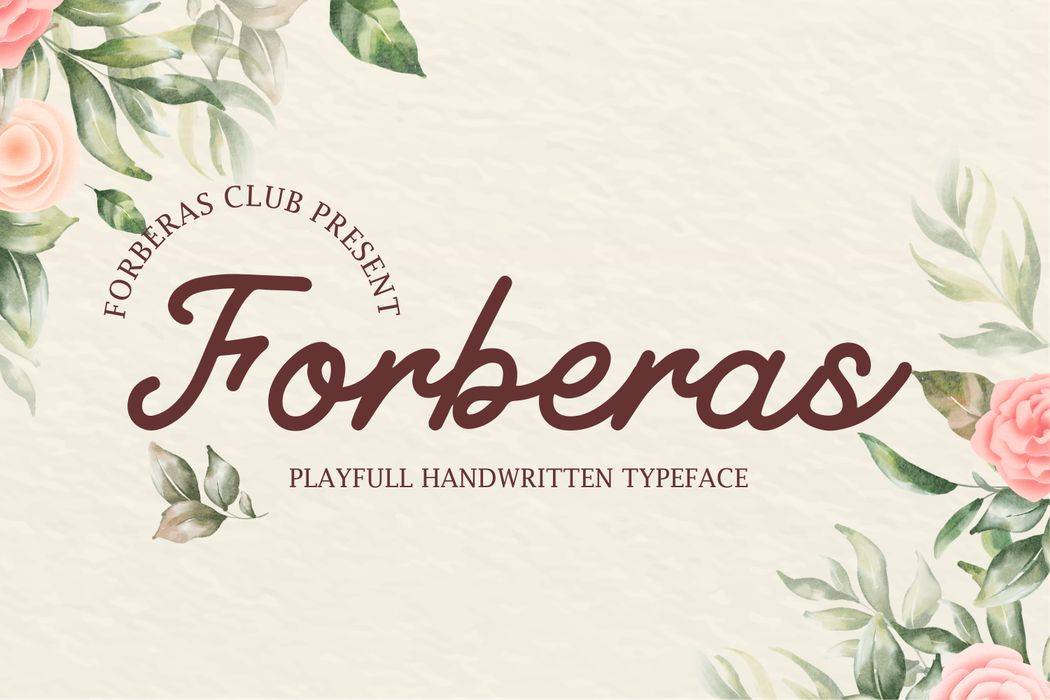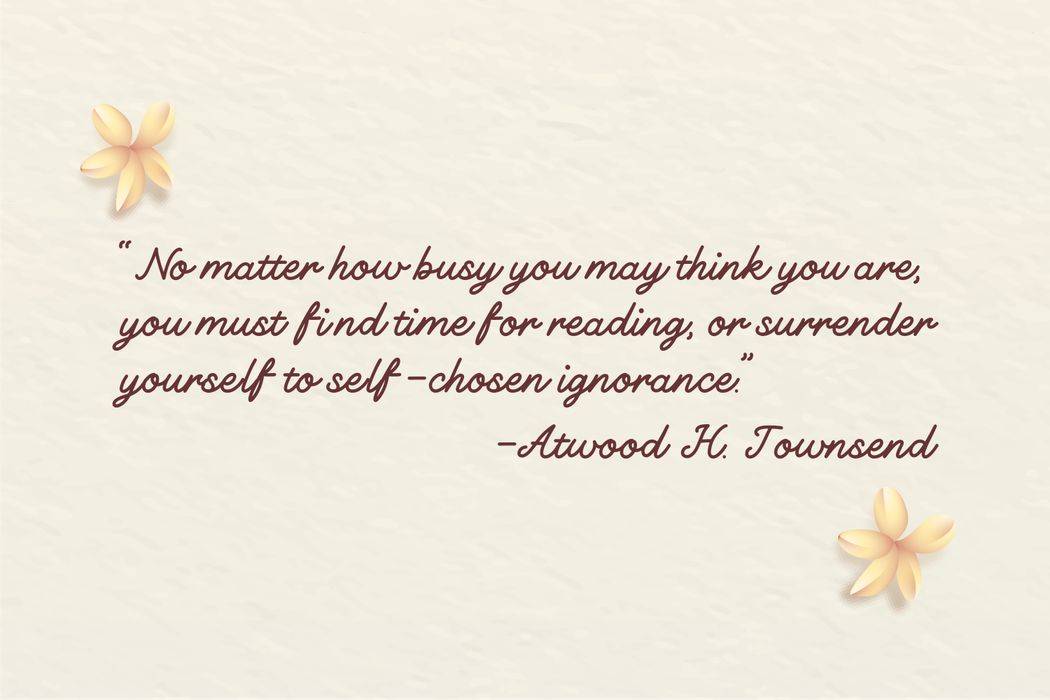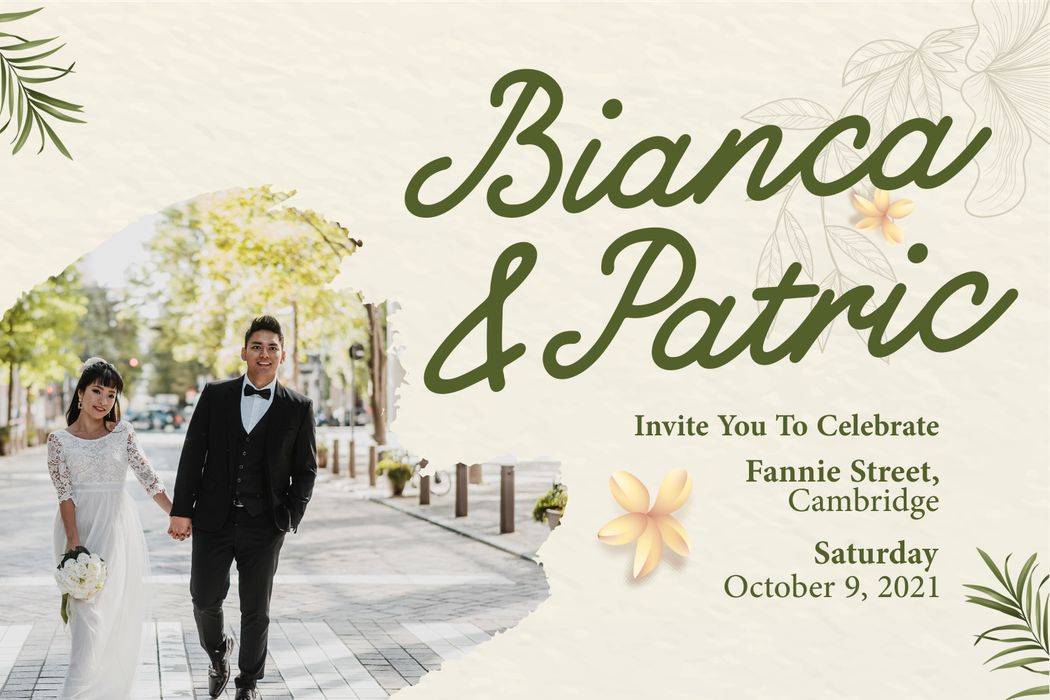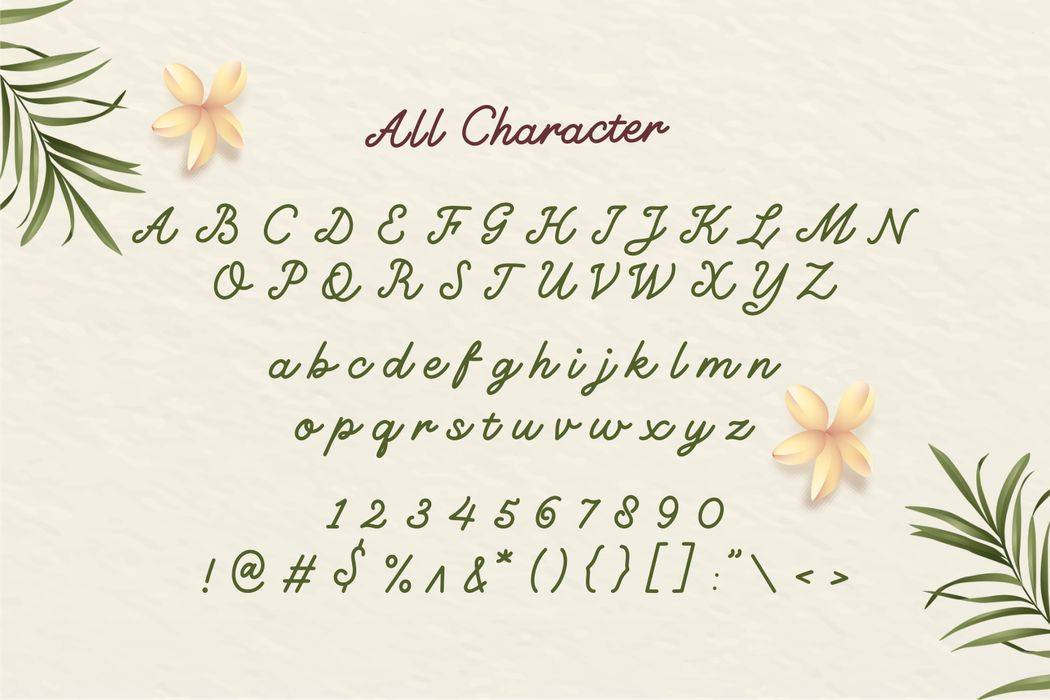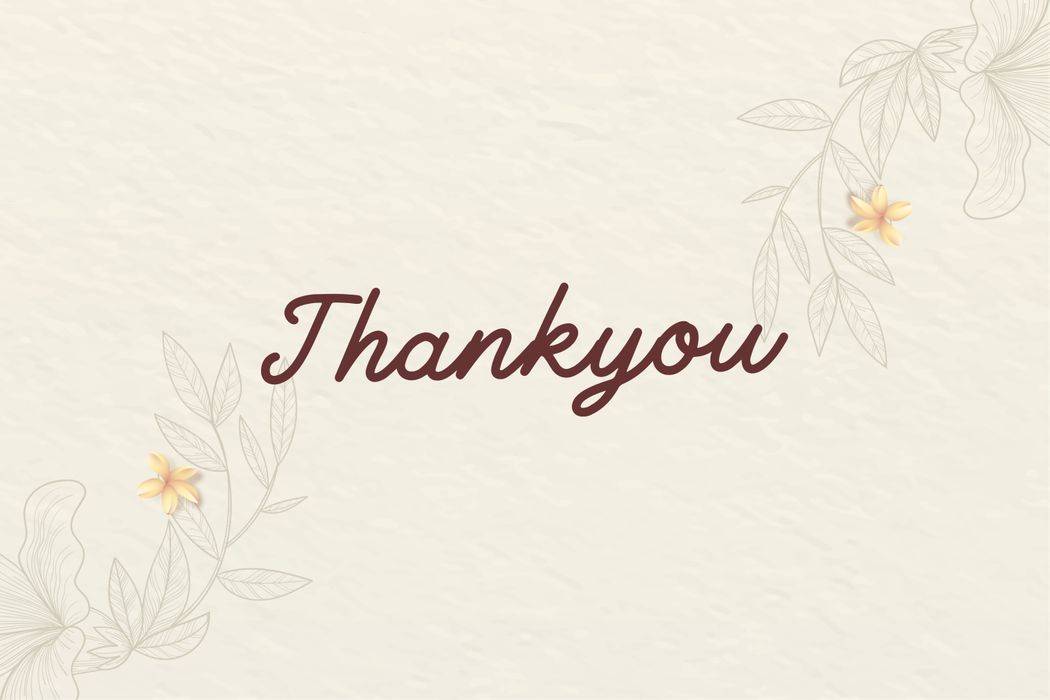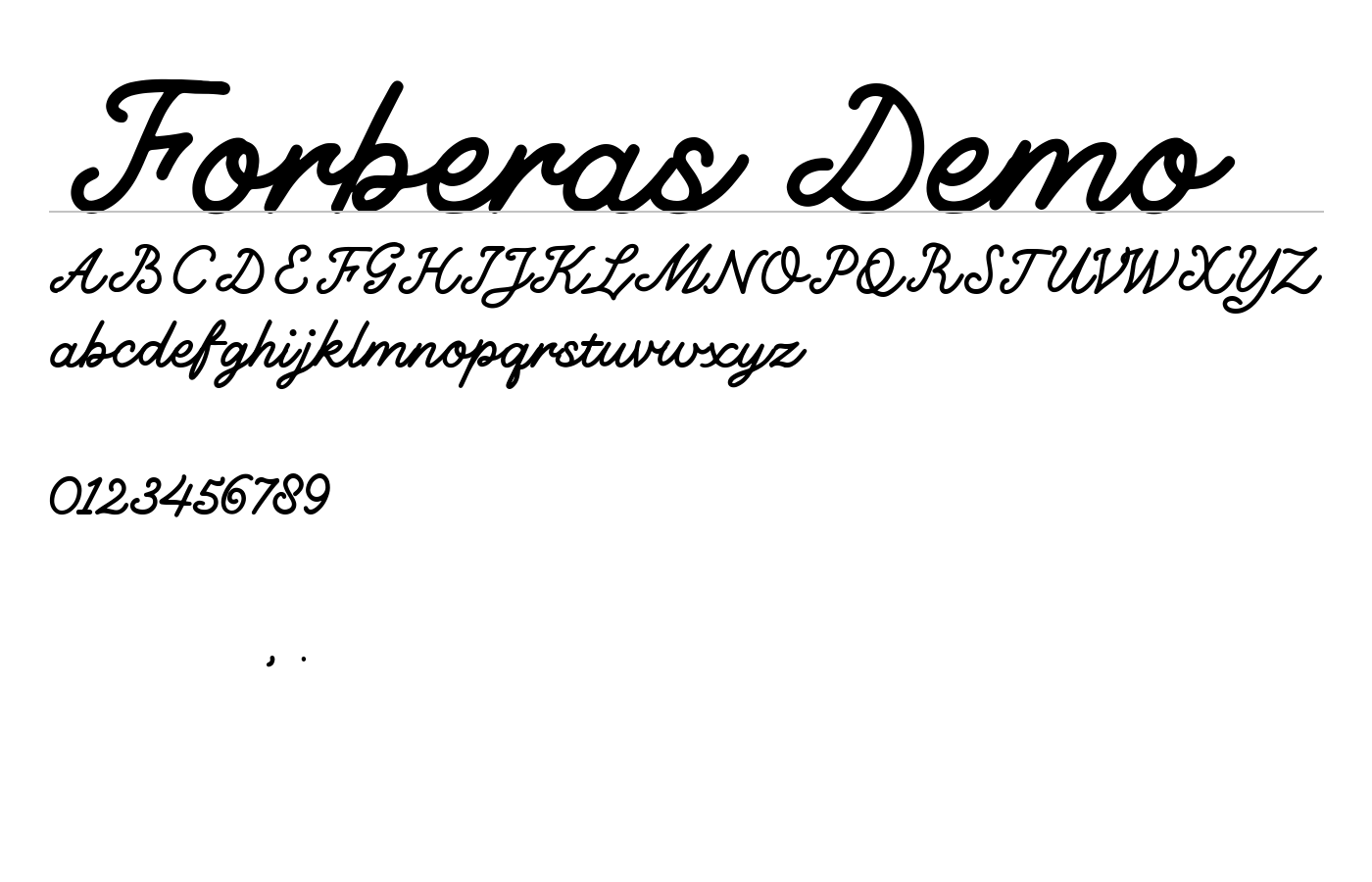
Forberas is a charming script font with a smooth, flowing style that mimics natural handwriting. It features elegant, moderately bold strokes with a medium contrast, giving it a warm and inviting feel perfect for creative and personal designs. Ideal for logos, invitations, and branding, Forberas adds a touch of classic sophistication while remaining approachable and readable.
Forberas Font
About Forberas Font